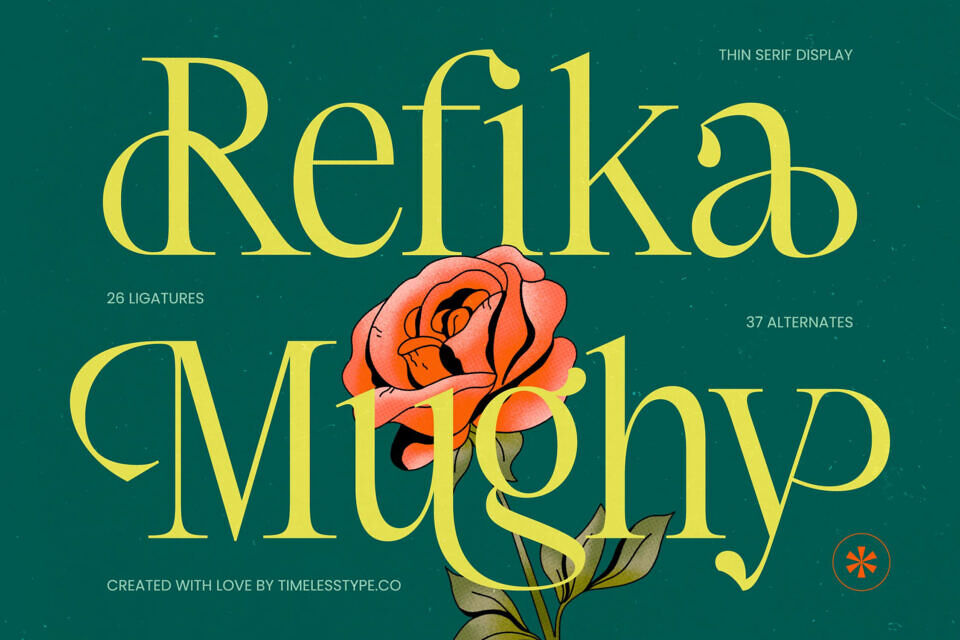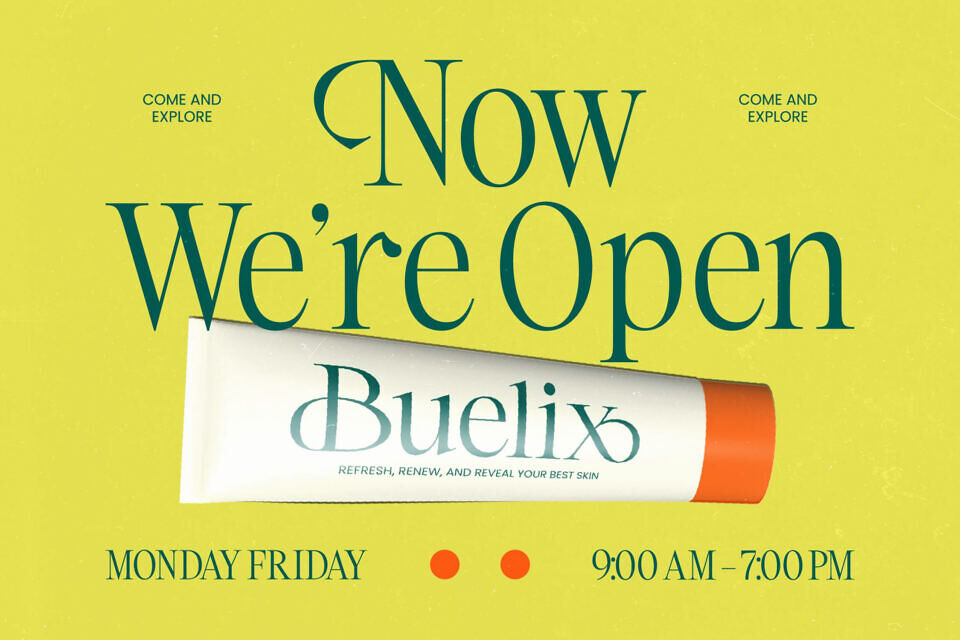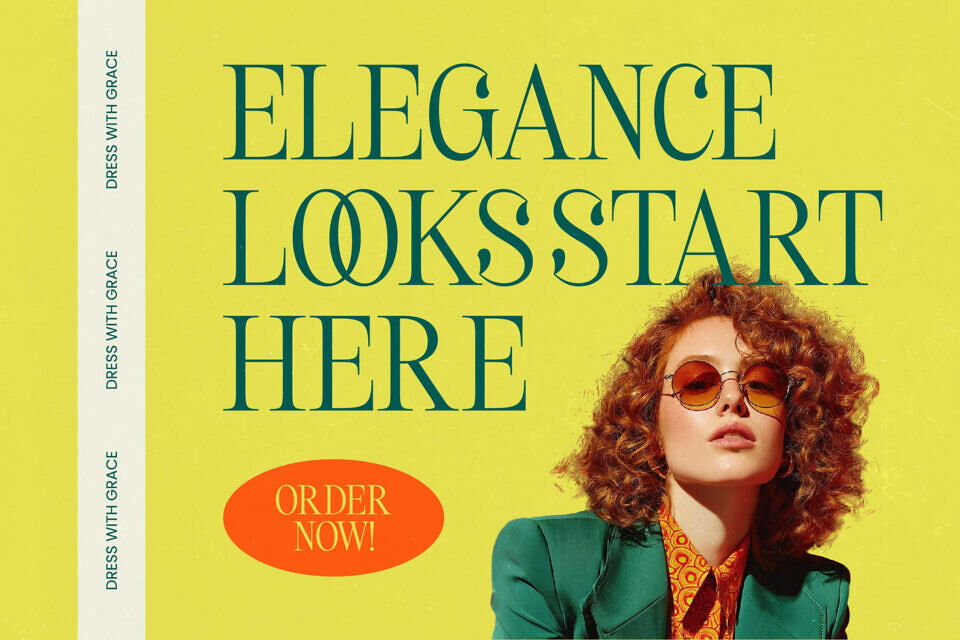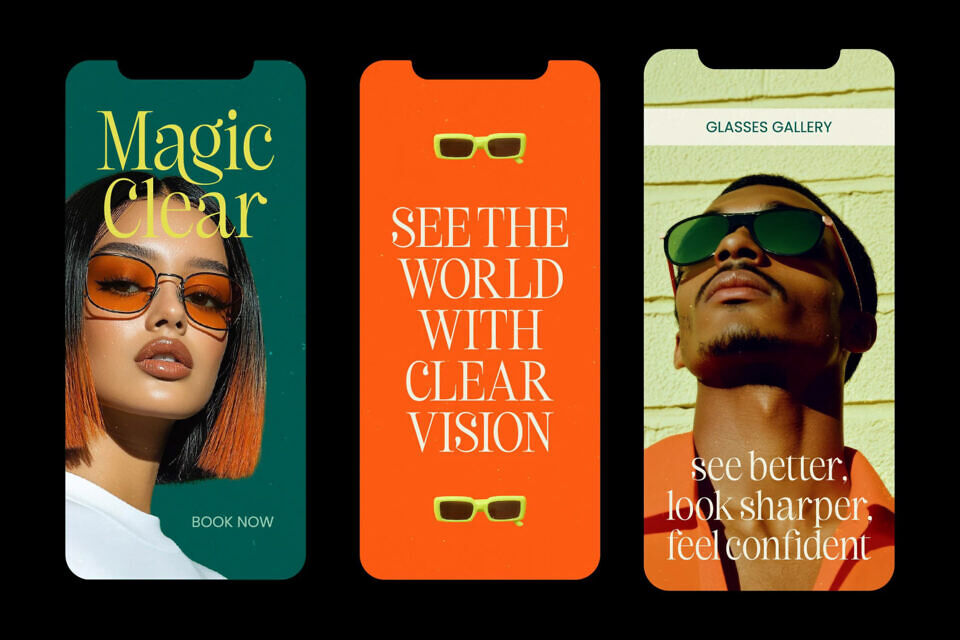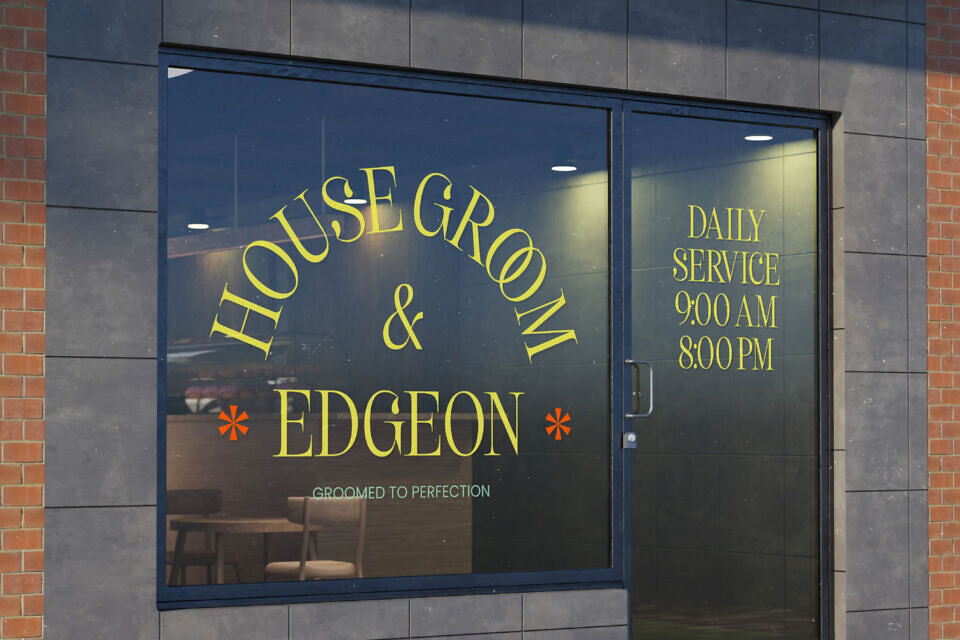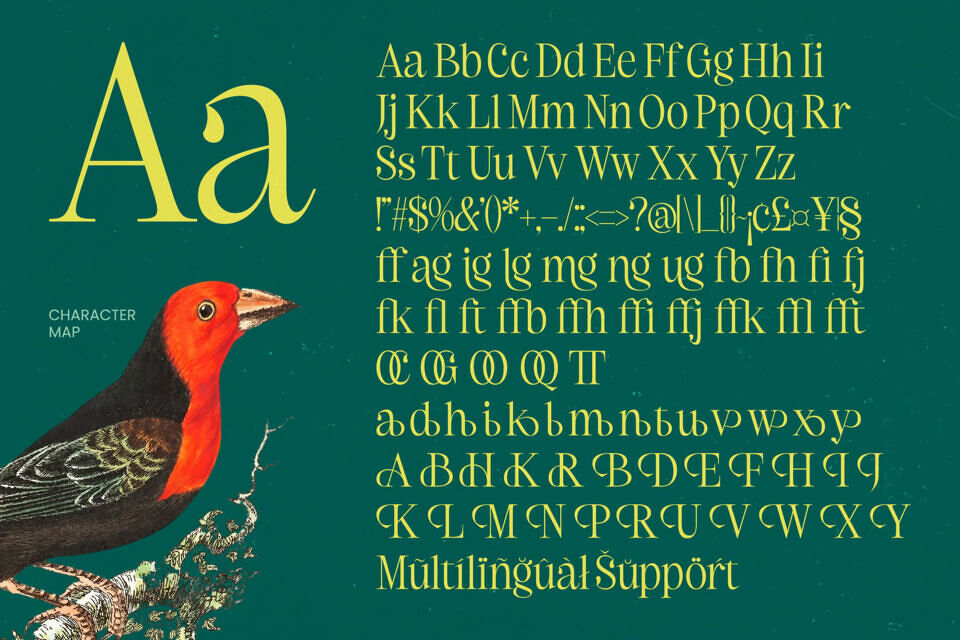
Refika Mughy Font
Elevate your design with Refika Mughy, a sophisticated typeface blending modern and classic styles. Its high-contrast serif and delicate lines create a refined visual identity. With 26 ligatures and 37 decorative alternates, it offers endless customization options.
The typeface supports multiple languages, making it versatile for global projects and perfect for luxury branding, high-end packaging, and premium logo design, transforming text into a statement of luxury.